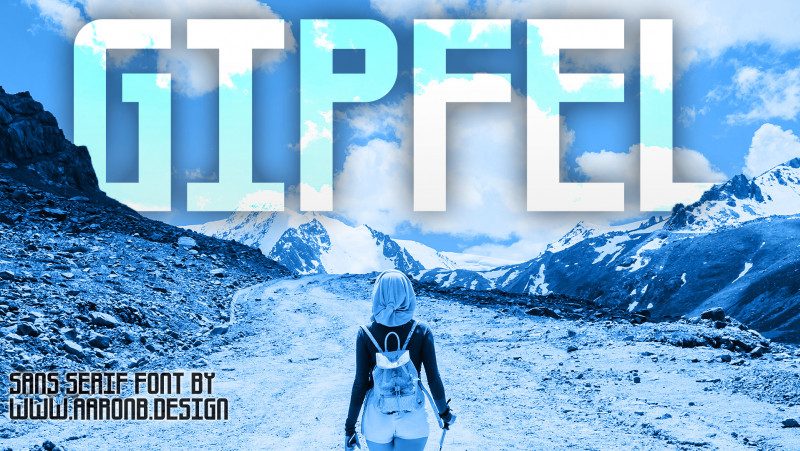
Gipfel Typeface is a sans serif font created specifically for titles. Included in this font is a regular style, along with an outline style. Both with A-Z and an alternative N to suit your needs.